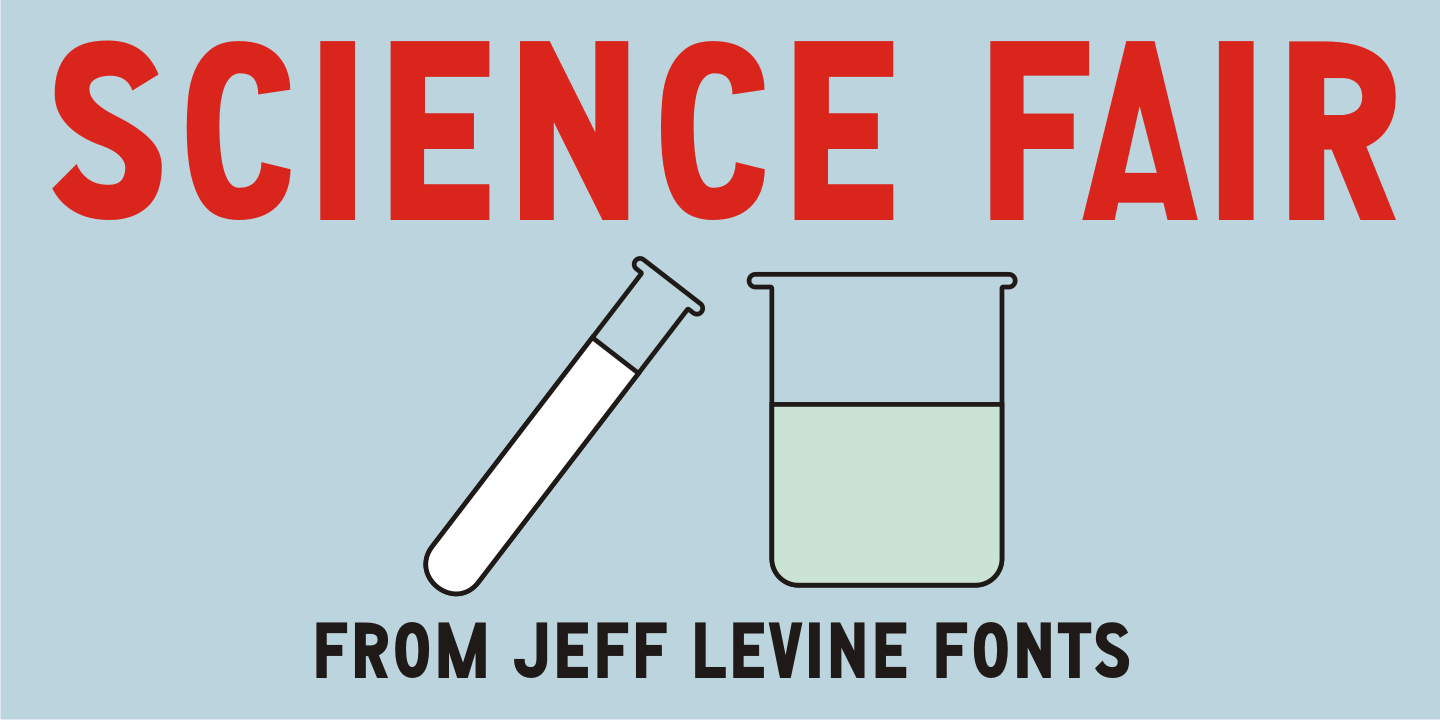
Science Fair JNL Font is perfect for educational science materials, STEM program branding, laboratory signage, science museum exhibits, academic research presentations, school science fair banners, scientific publication headers, chemistry lab equipment labels, physics demonstration posters, and educational technology applications that inspire scientific curiosity and learning.
What makes Science Fair JNL Font exciting is its authentic ability to capture the enthusiasm and discovery spirit of scientific exploration through its precise letterforms that evoke the structured methodology and intellectual rigor of scientific inquiry. This scholarly typeface embodies the essence of academic achievement and scientific breakthrough with its clean, analytical character that speaks of hypothesis testing, experimental validation, and the joy of discovery that drives scientific progress.
The Science Fair JNL Font family includes regular, bold, and condensed weights designed to maintain its scientific authenticity across various educational applications. Special scientific symbols, laboratory ornaments, and research-themed decorative elements complement the main typeface, while enhanced spacing ensures optimal readability for both detailed lab reports and large science exhibition displays.
Science Fair JNL Font Free Download offers educators and science communicators access to typography that inspires scientific thinking. Its methodically crafted letterforms maintain excellent legibility while projecting an image of academic excellence and scientific credibility. The font's versatile nature works brilliantly for both professional research institutions and elementary school science projects.
Experiment with the intellectual power of Science Fair JNL Font and create designs that celebrate scientific discovery while encouraging the next generation of researchers and innovators to explore our fascinating world.